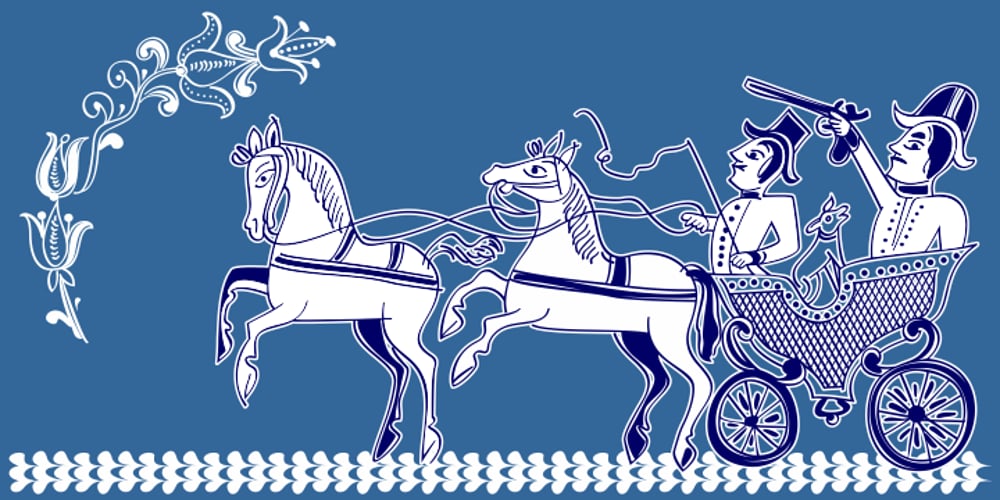
Hutsulyandiya 2D Font Family was designed by Iryna Korchuk and published by 2D Typo. Hutsulyandiya 2D contains 3 styles and family package options. Hutsulyandiya 2D family fonts comprise folk ornaments found on Hutsul ceramics of the mid 19th to early 20th centuries. Hutsulshchyna is an ethnic region in the Ukrainian Carpathian Mountains where folk art and indigenous culture preserve up to nowadays. All images are to the maximum approximated folk prototypes. The graphics are characterized with grotesque, stylization simplicity, surprising plot moves. The font cheers up and evokes positive emotions.